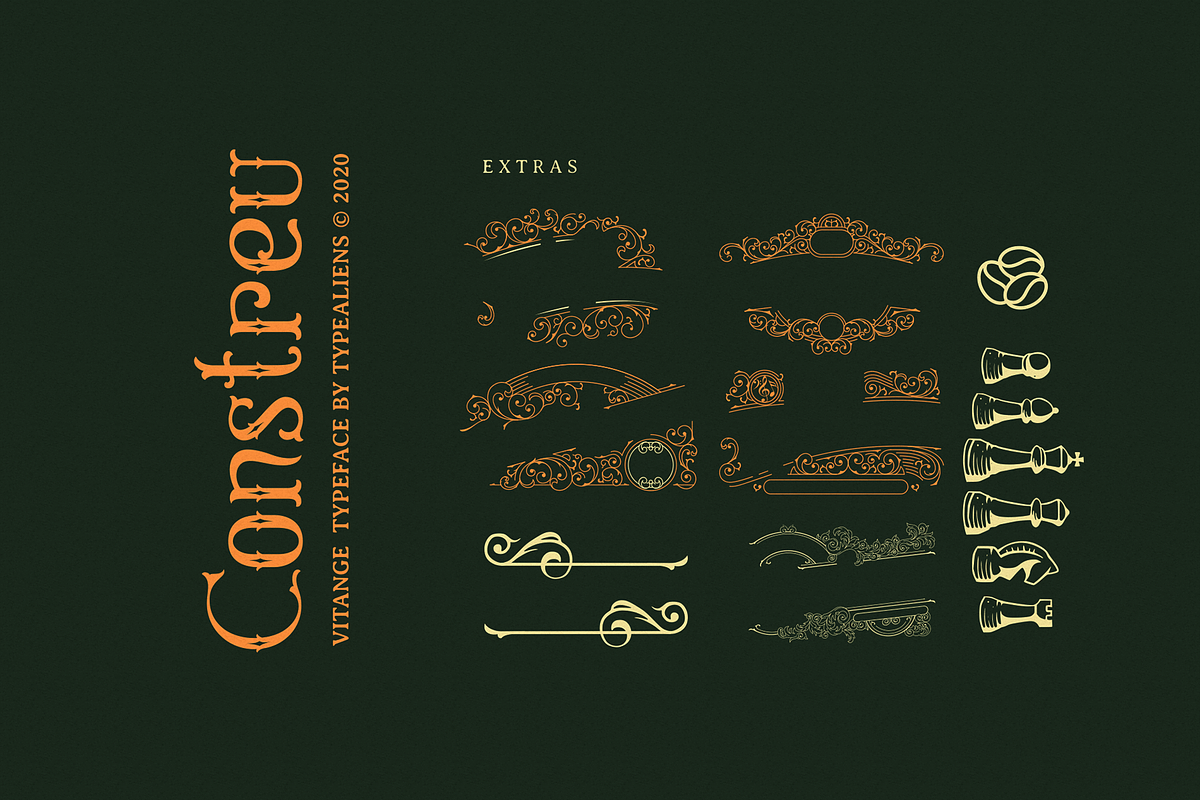
Constreu for Vintage Logo & Branding
CONSTREU
is a font with a victorian style typeface, quite simple and not too much ornamentation on the anatomy of the letters. It will be very suitable for vintage designs, such as making logos, logotypes, playing card, badge designs, liquor label designs, branding, advertising etc.
In addition to standard characters such as Lowescase, Uppercase, Numbers and Punctuation there are also bonus vector ornaments in the form of AI and EPS files.
Features : Ligatures. Extra Ornaments. Support Multilingual Characters.